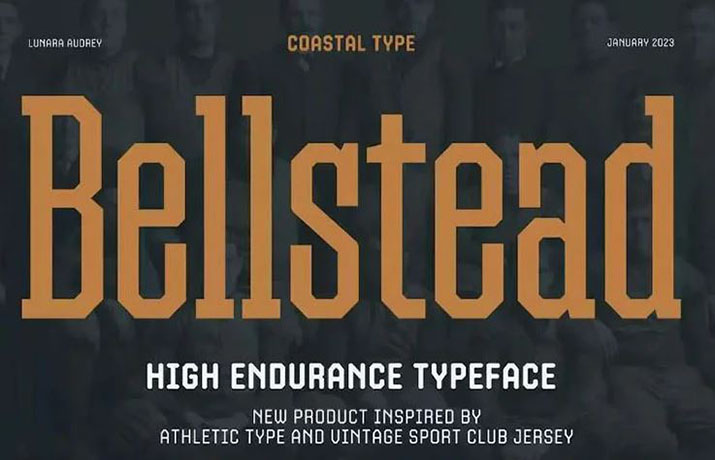
Bellstead Font is a vintage-inspired athletic display typeface that has a classic and professional look. It was designed by Lunara Audrey and published by Coastal Type.
All of its letters are created by the designer with well-rounded with a clean and sharp appearance just to give a clean and decent look to any design. So, it can easily be useable for bigger text because it is created with bold strokes.
Its classic look makes it ideal for various projects such as sports, sports teams, schools, display work, quotes, posters, headers, banners, branding, logo designs, acronyms, and headings.
“Bellstead typeface is available in a single style along with Open Type features. This font includes 106 glyphs and 2 binary stored kerning pairs. Moreover, it also supports 34 multilingual languages”.
• It’s a multipurpose font that can be used for a number of things, including headings, branding, t-shirt game graphics, product designs, social media banners, titles, sports elements, special event cards, shopping bags, logos, graphics, and branding. It can also be used to add some elegance to your typography.
Bellstead Font is a vintage-inspired athletic display typeface that has a classic and professional look. It was designed by Lunara Audrey and published by Coastal Type.